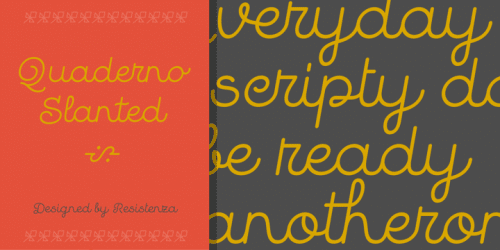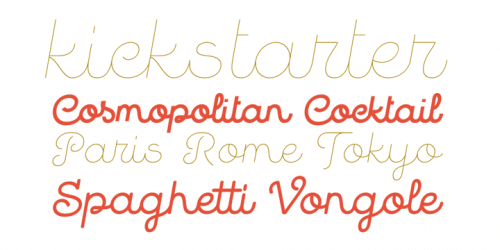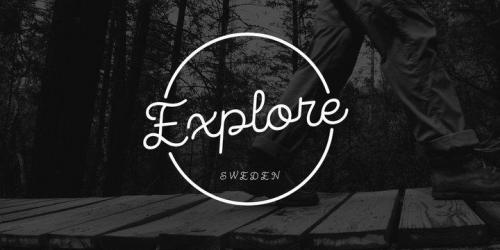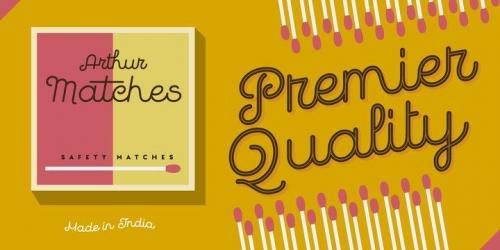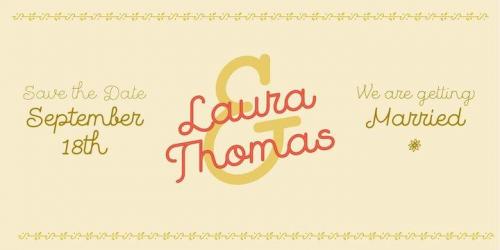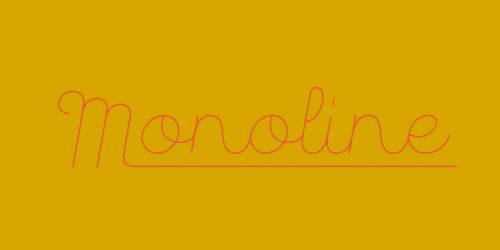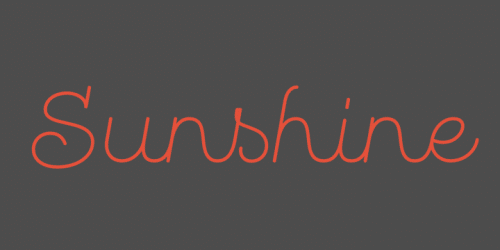
Quaderno Slanted is a light and monolinear script, accompanied by the heavier weights. This connected script combining elements of the traditional Italian script Bella Scrittura.
Quaderno is suited for middle length texts and headlines and evokes both vernacular and commercial lettering of the 20th century and a typeface for school book purposes.
You can also overlap them and get a double stroke effect.